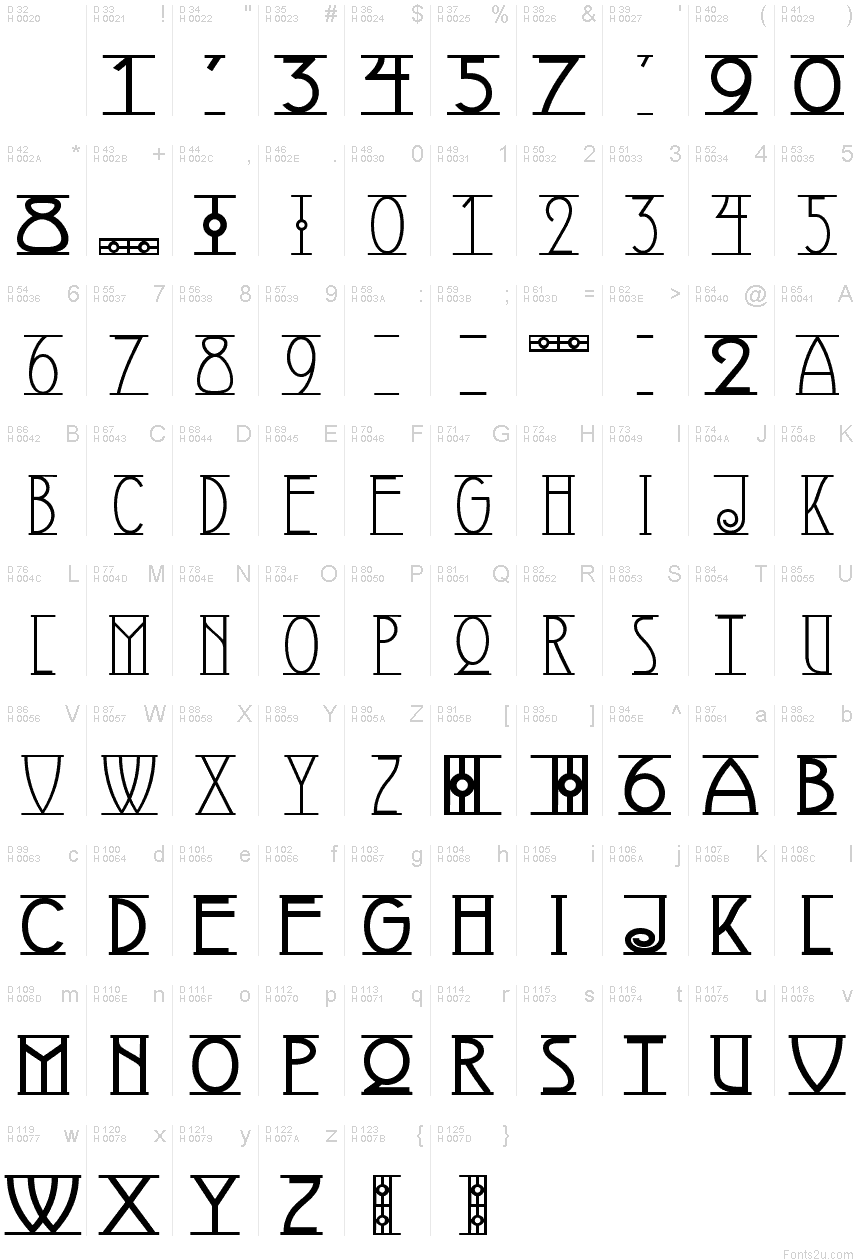
Avignon by Nick Curtis is a free Art Deco display font built from tall capitals and dramatic changes in stroke width. Broad, sweeping curved forms meet fine uprights in the poised geometry of classic 1920s poster design. The silhouettes are crisp and theatrical.
A cinema poster is its strongest setting, with the sweeping curves and severe straight lines also fitting jazz event graphics, fashion branding, cocktail packaging, and stylish period book jackets. Across these uses, the sharply constructed capitals evoke the glamour of period marquees and elegant architectural lettering.